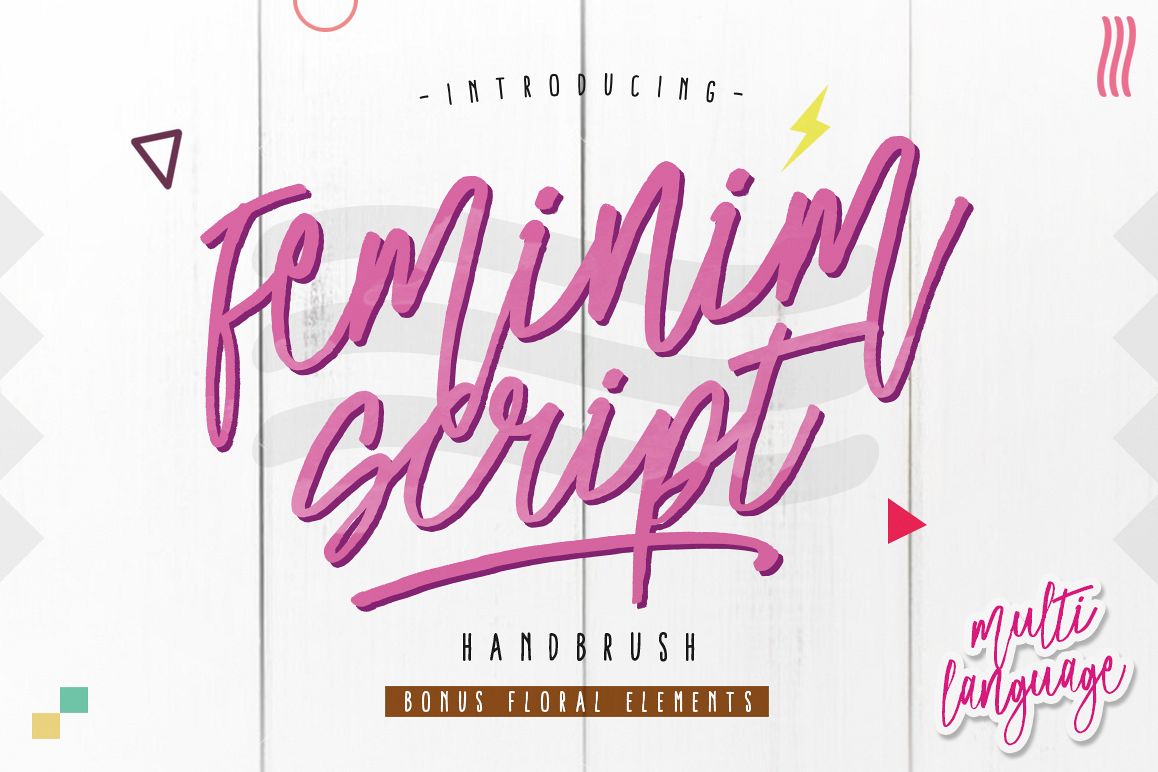
Feminim Script + Bonus
FeminimScrip
Introducing a new FEMINIM SCRIPT FONT with BONUS
a Feminim Script good lettering script font. this font include multi language "latin". awesome use for tittle cover book, brand, magazine, catalog brand, any many more.